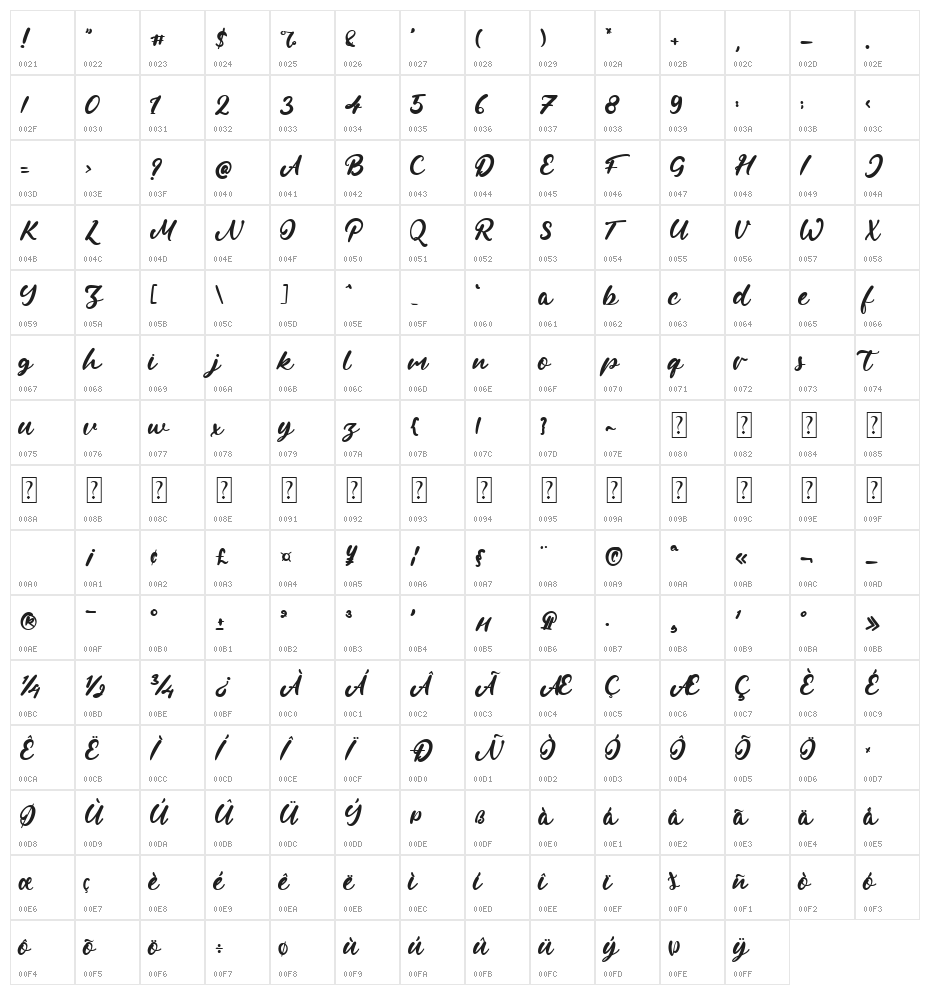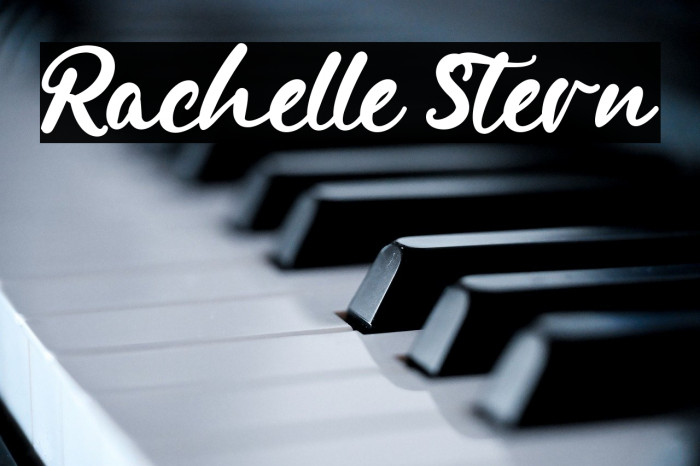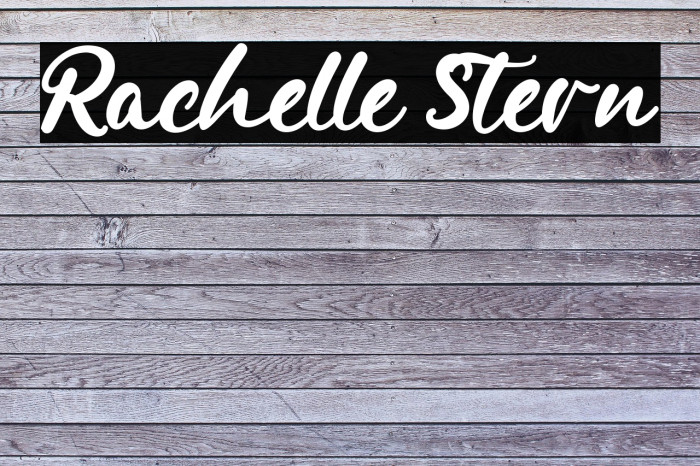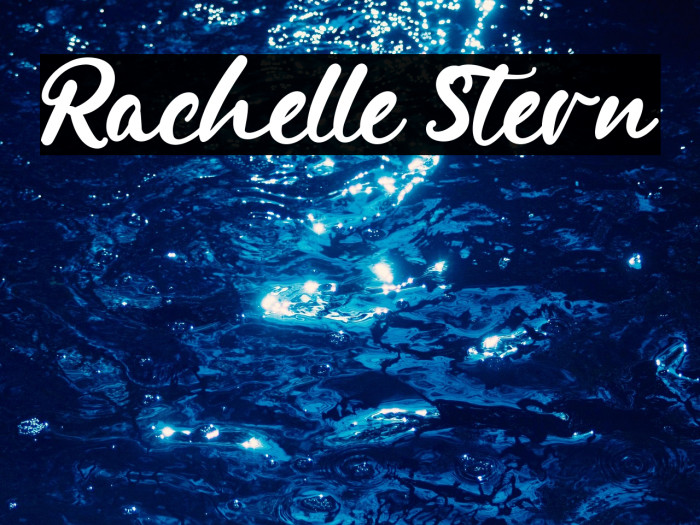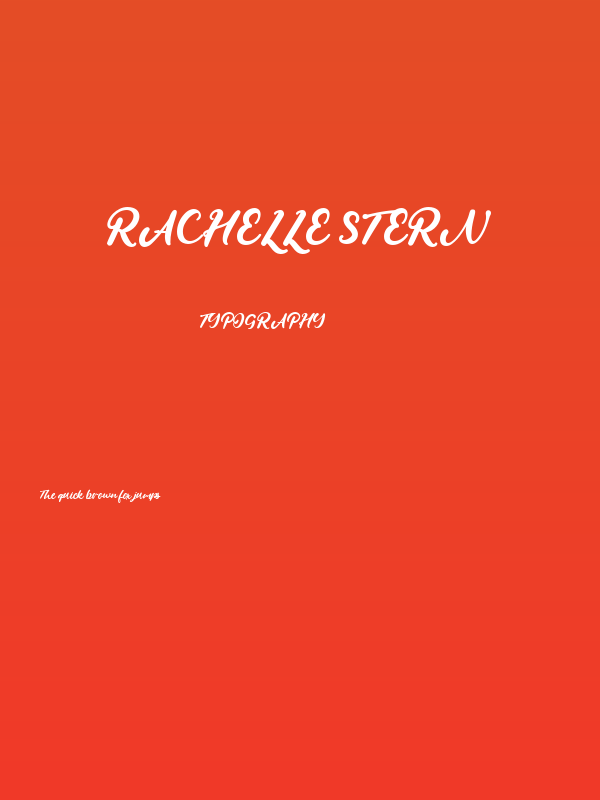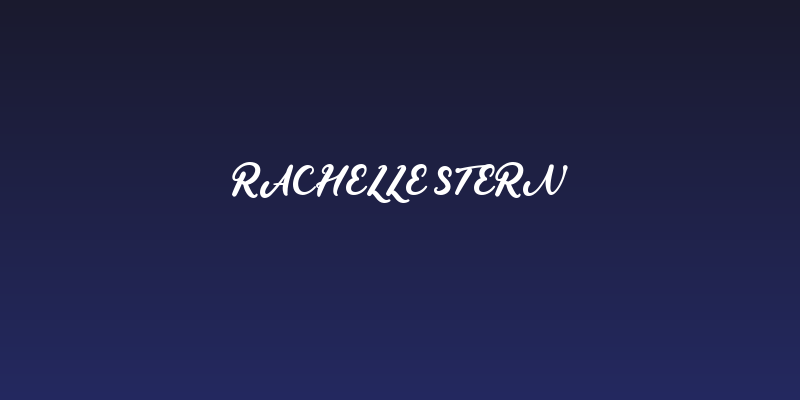
Rachelle Stern Font
Rachelle Stern Description
This font exhibits a flowing, cursive style with a modern twist, characterized by its smooth, connected strokes and elegant curves. The uppercase letters are bold and expressive, while the lowercase letters maintain a consistent flow, enhancing readability. The numerals are distinct and well-proportioned, complementing the overall script style. Special characters are designed with the same fluidity, ensuring a cohesive look across all text elements. This font is perfect for adding a personal touch to any project, offering a sense of sophistication and charm.